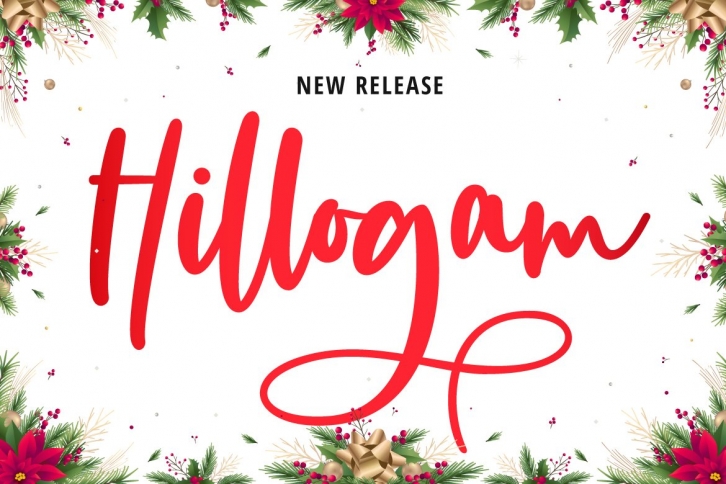
Hillogam is a gorgeous font that was realeased on December 13, 2020. The font can be used in many style contexts and design environments. Perfect for invitations, magazines, websites, logos, and more! It was designed by FallenGraphic Std and the file size is 4.50 MB. Thanks for checking out this font!